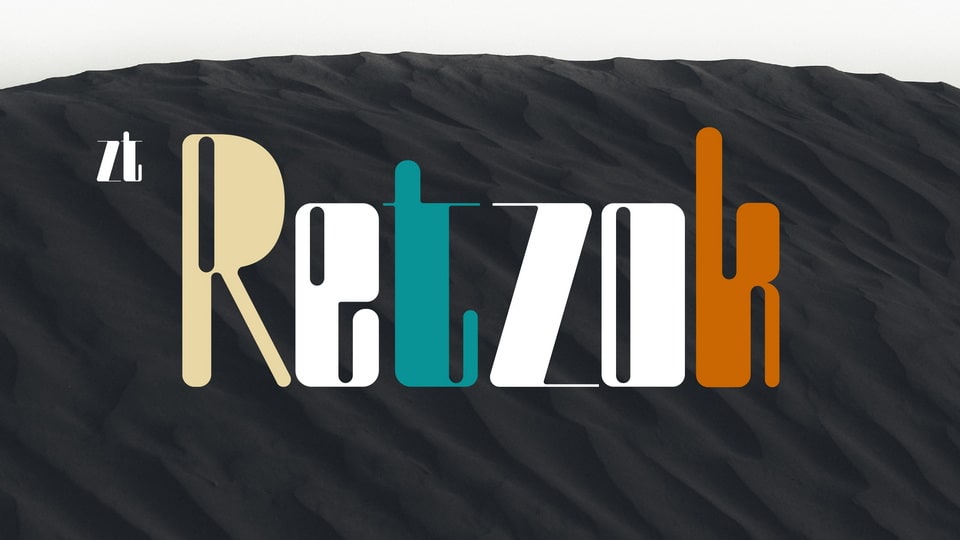
ZT Retzok Font › Fontesk – Download Grátis
Download ZT Retzok font, a display typeface with thick thin lines like a barcode so as to produce apparent contradictions this is a sweet spot that we all adore and stays firm but not rigid.
Designer: Zelow Type